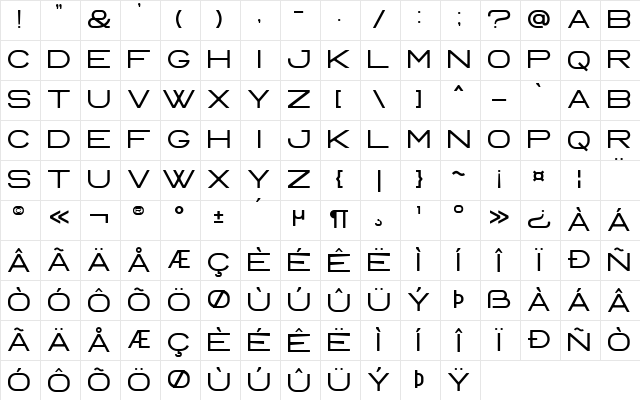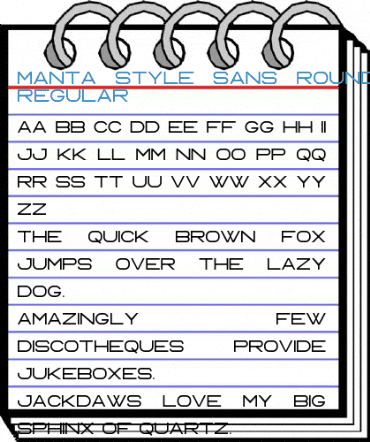
Complete Manta Style Sans Round DEMO Regular glyph index. Displaying only characters natively supported by Manta Style Sans Round DEMO Regular font.
Manta Style Sans Round DEMO softens its letterforms with rounded terminals, giving it an approachable, friendly quality that works well in consumer-facing and digital contexts.
Font Pairing: Pairs well with a rounded or humanist sans for body copy, maintaining the friendly tone without relying on Manta Style Sans Round DEMO to carry extended reading.
Pro Tip: Use Manta Style Sans Round DEMO for UI elements, app interfaces, and anywhere a friendly, approachable tone needs to be maintained without sacrificing clarity.